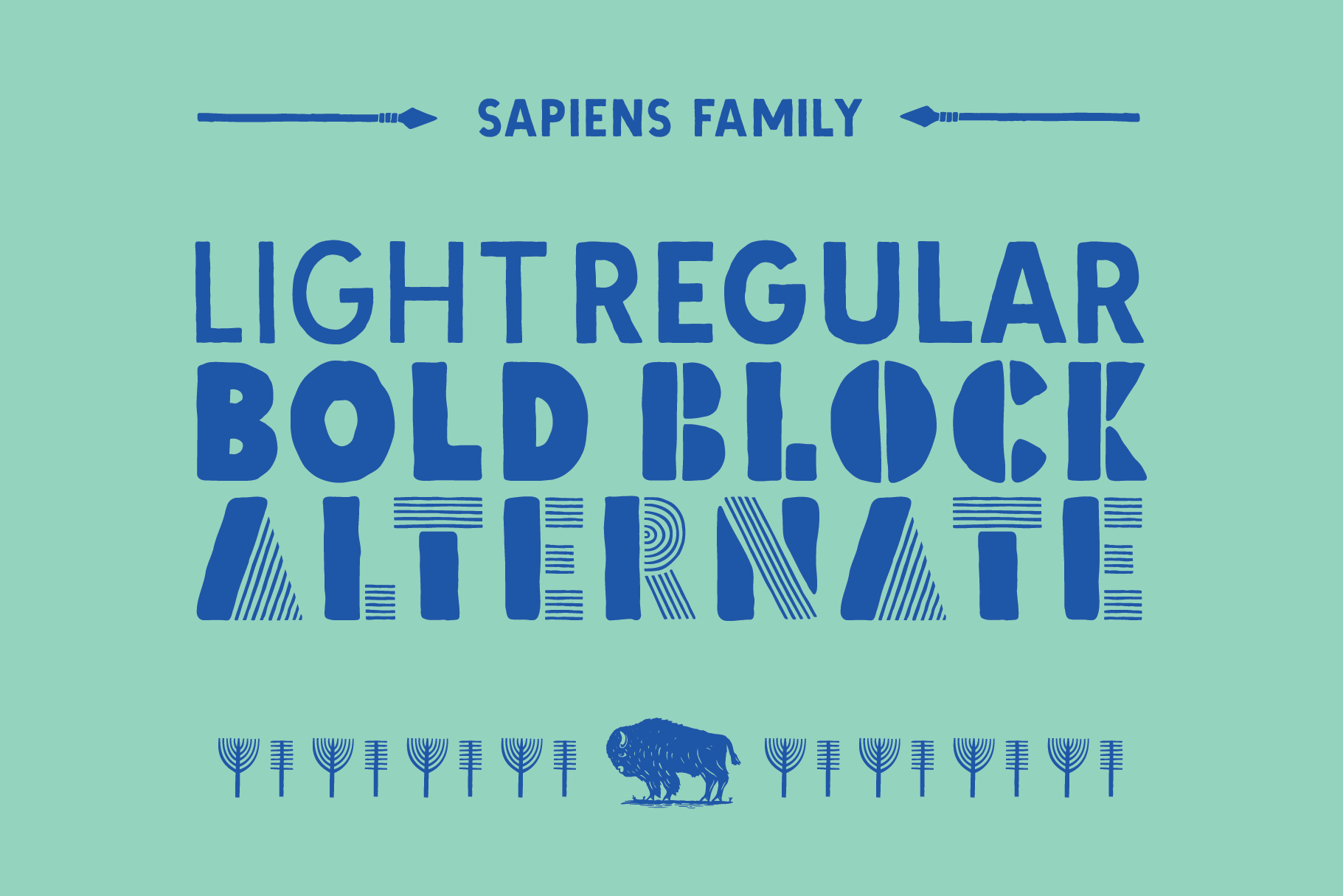
Sapiens is a prehistoric font family characterised by simplicity and crudeness, as if carved out and assembled by our sapiens ancestors. The family is built with a rough edged style that evolves through various styles and becomes more legible while retaining the raw roots of its origins.
Sapiens Light
Sapiens Regular
Sapiens Bold
Sapiens Block
Sapiens Block Alternate
Sapiens is a prehistoric font family characterised by simplicity and crudeness, as if carved out and assembled by our sapiens ancestors. The family is built with a rough edged style that evolves through various styles and becomes more legible while retaining the raw roots of its origins.
Sapiens Light
Sapiens Regular
Sapiens Bold
Sapiens Block
Sapiens Block Alternate